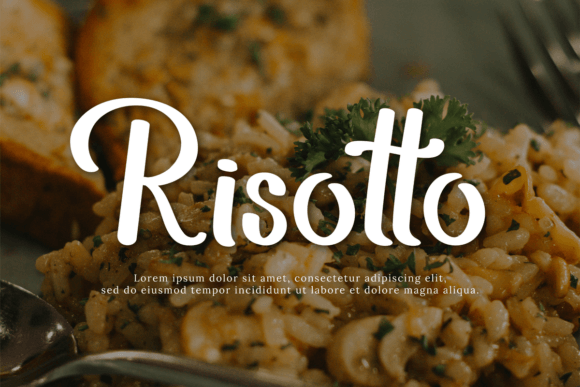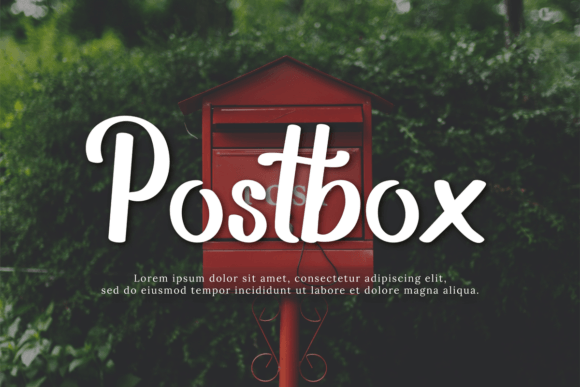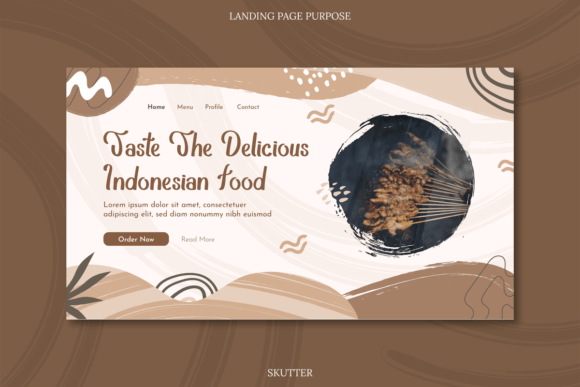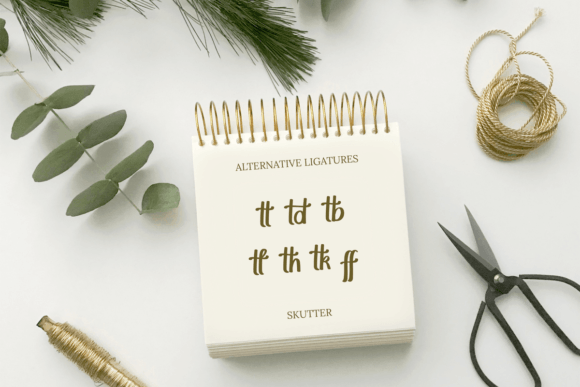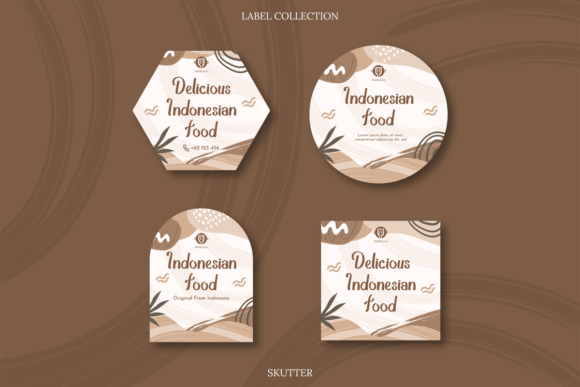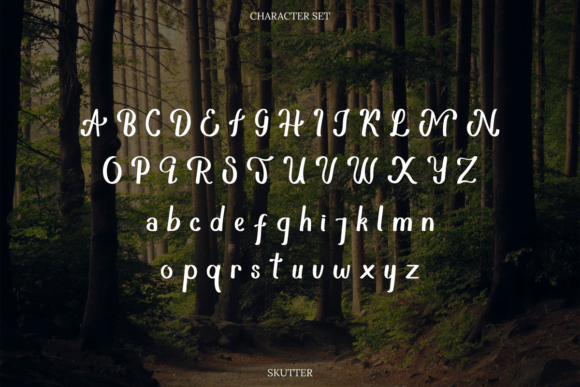
Introduction to Skutter Font
Skutter – Handwritten Font Skutter is a retro font with semi-script characters.
“Skutter” has a bold and cursive side that brings retro vibes It is completely appropriate for any design.